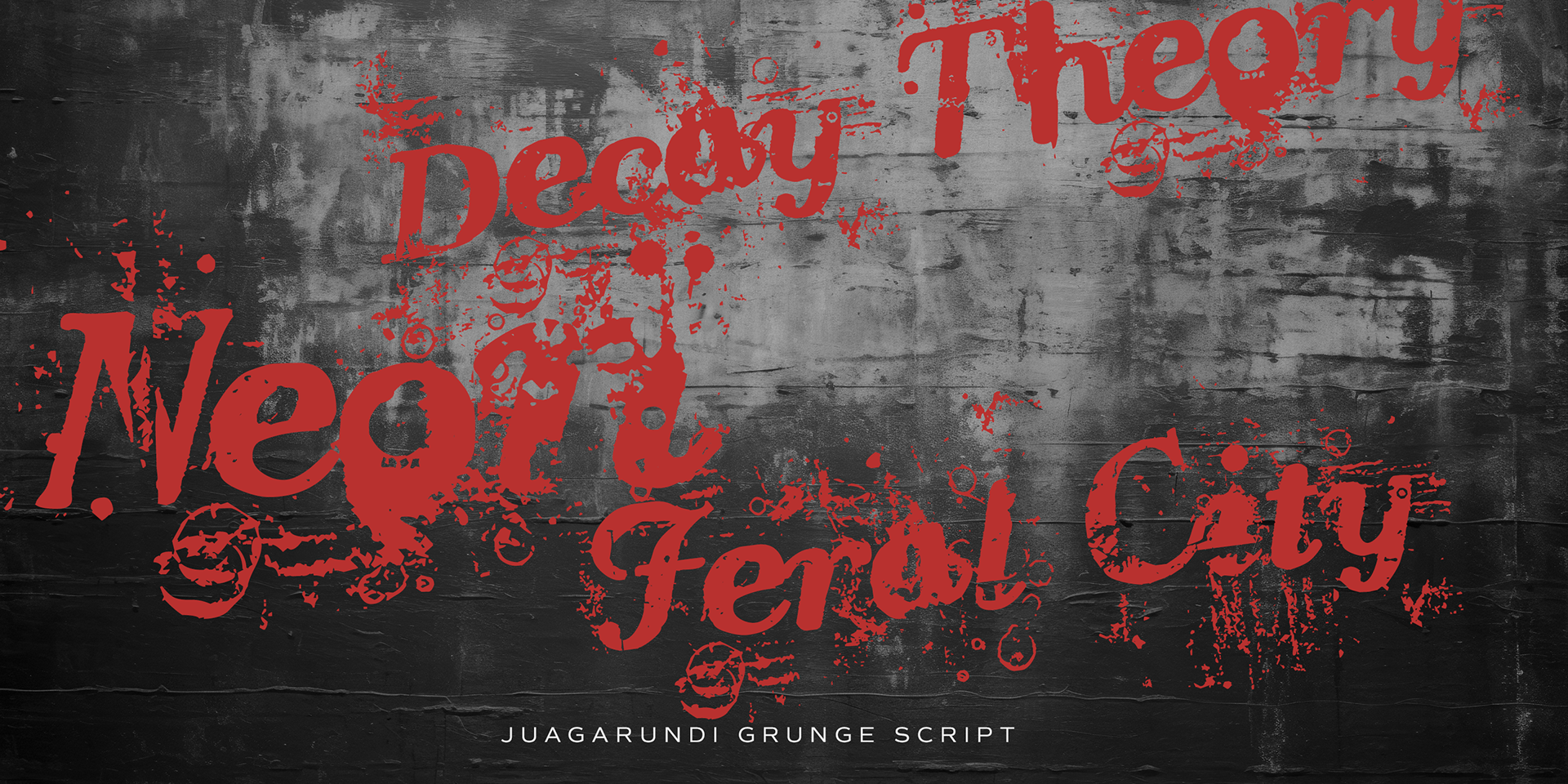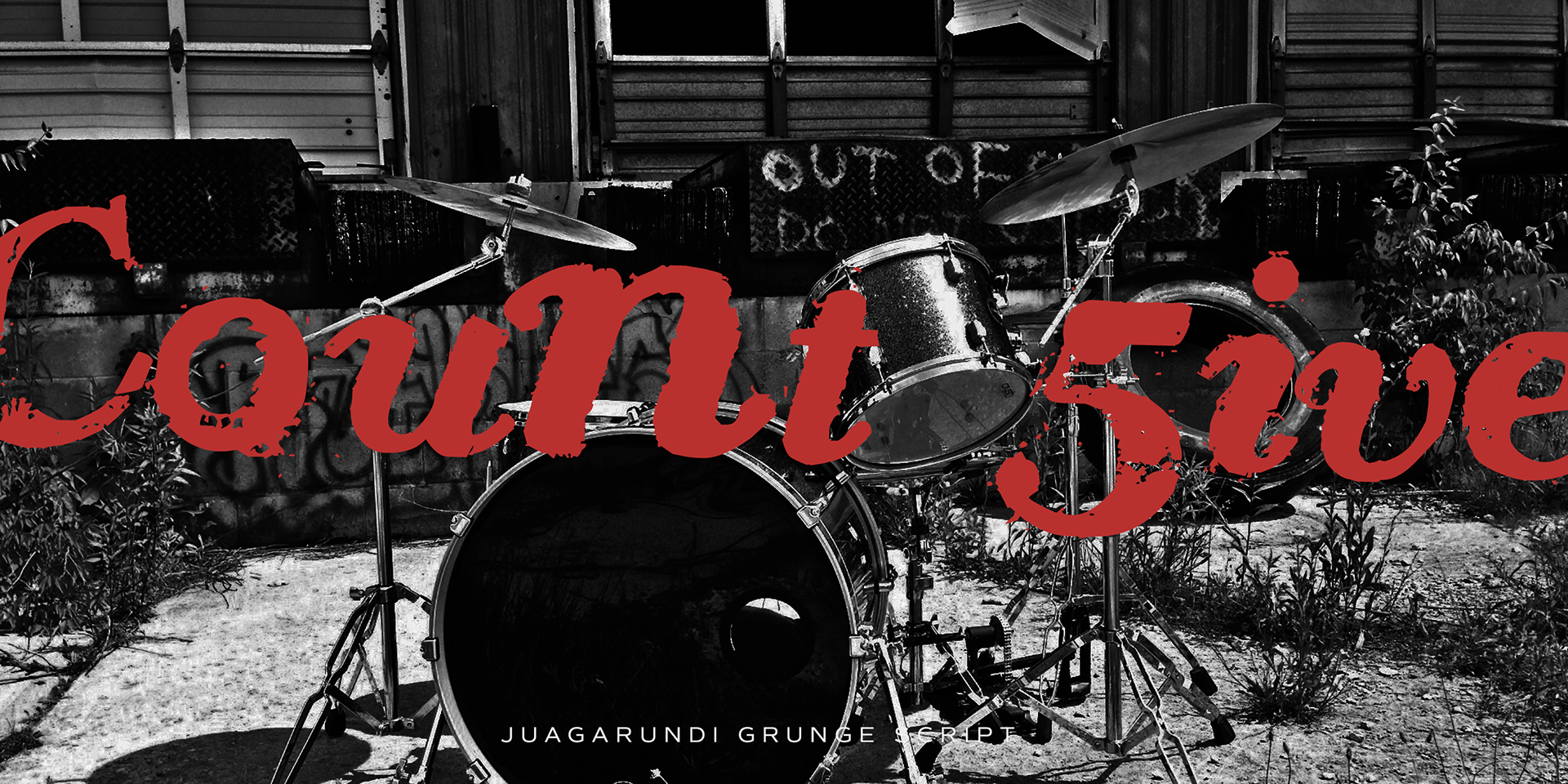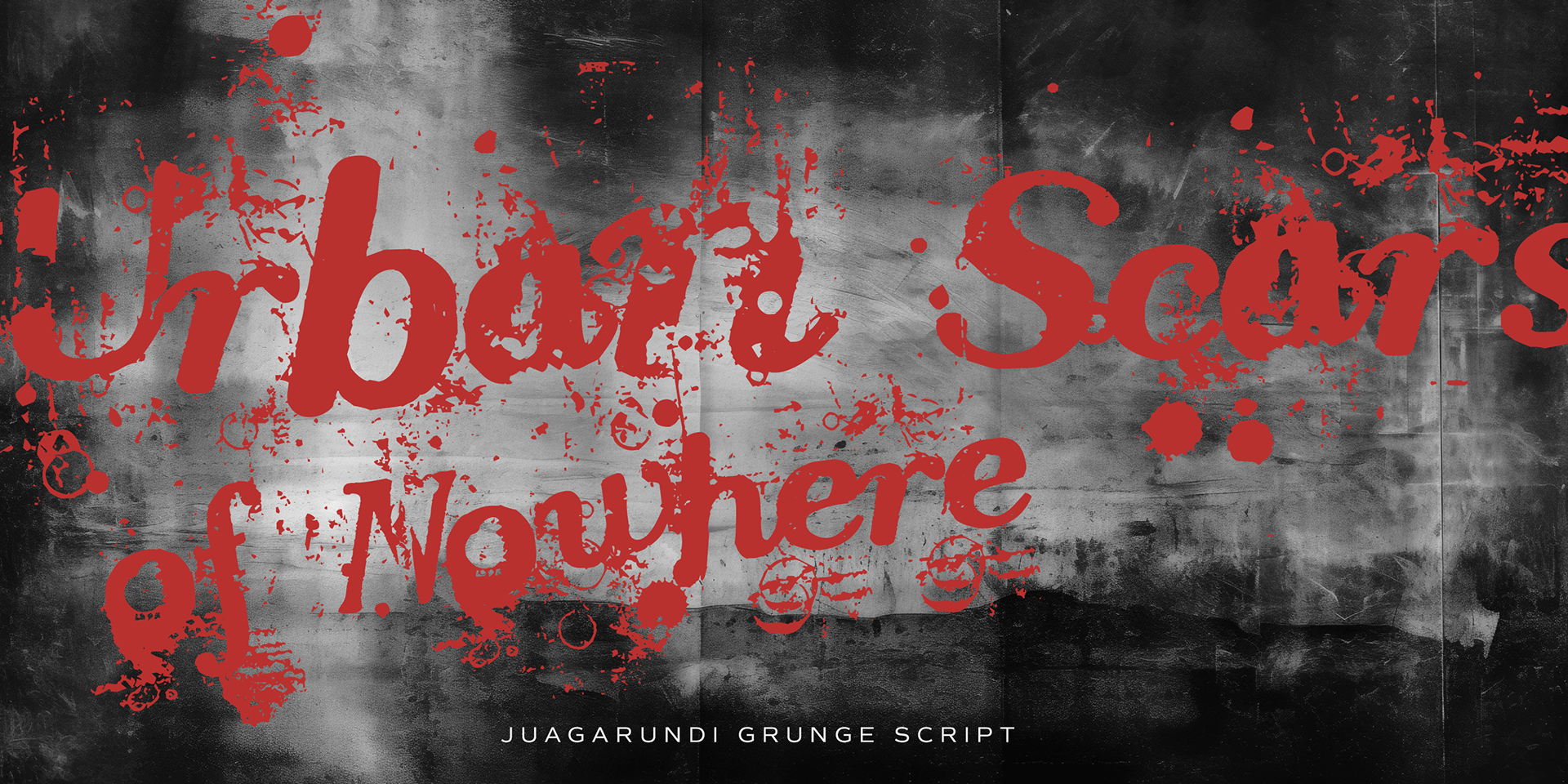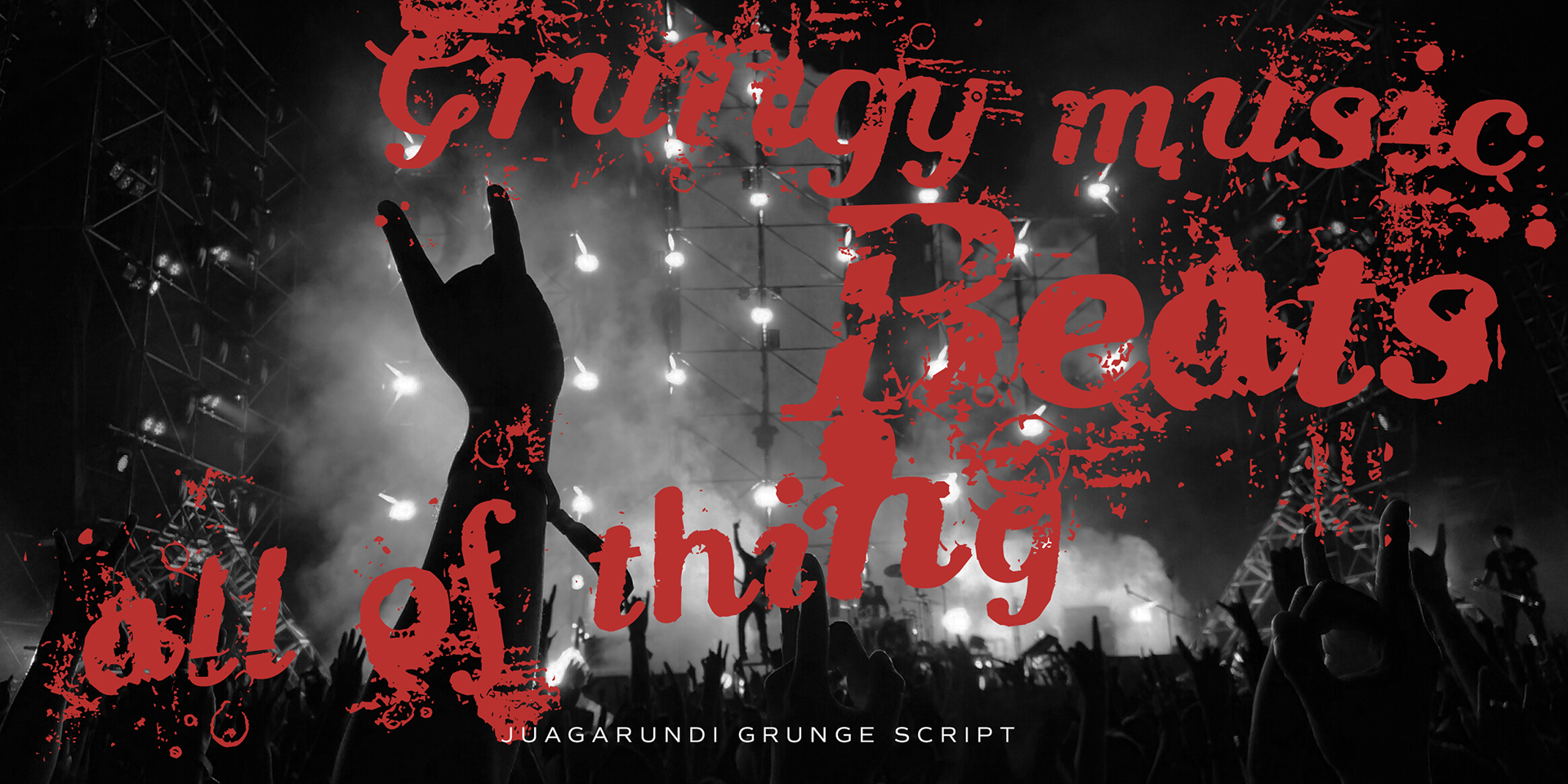
Jaguarundi
Inspired by the jaguarundi, a wild cat native to Central and South America, this font embodies a scratched, worn, and decadent aesthetic.
Its raw, distressed style makes it a perfect choice for rock, grunge, or underground-themed posters.